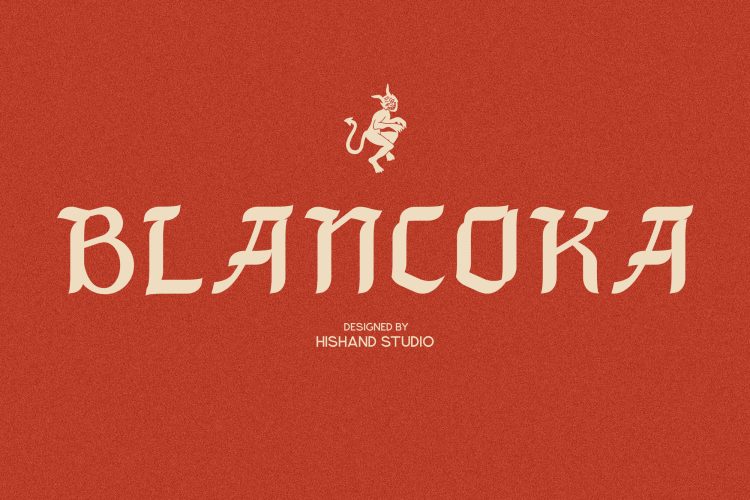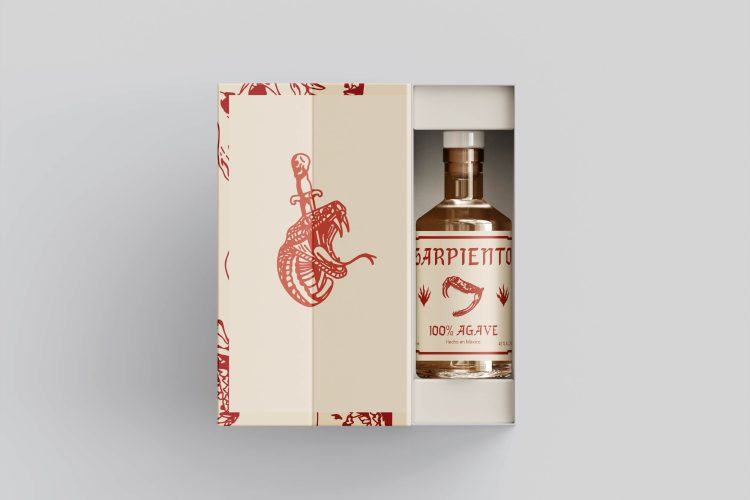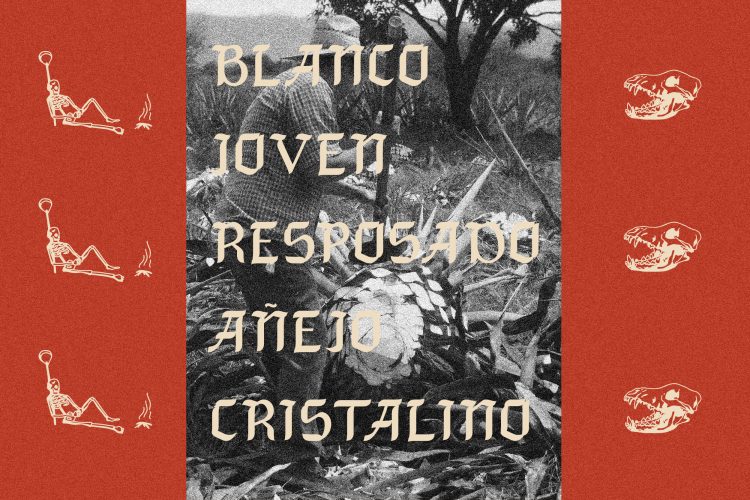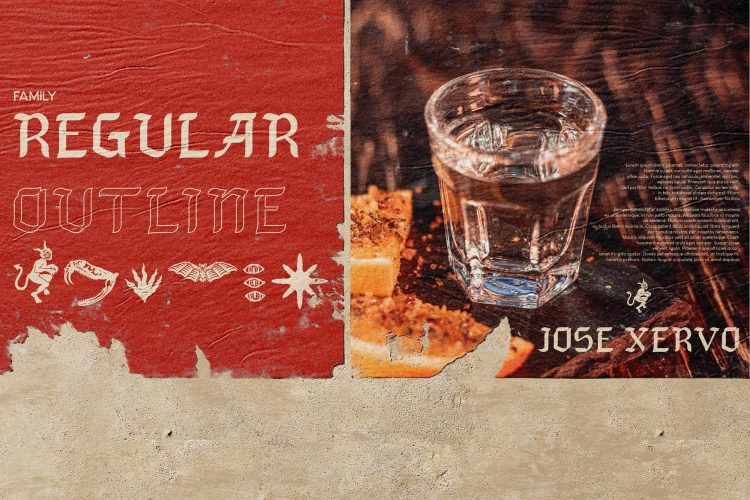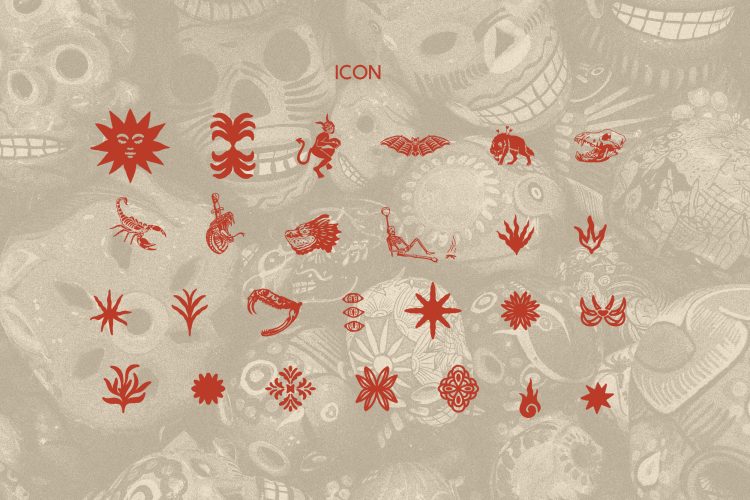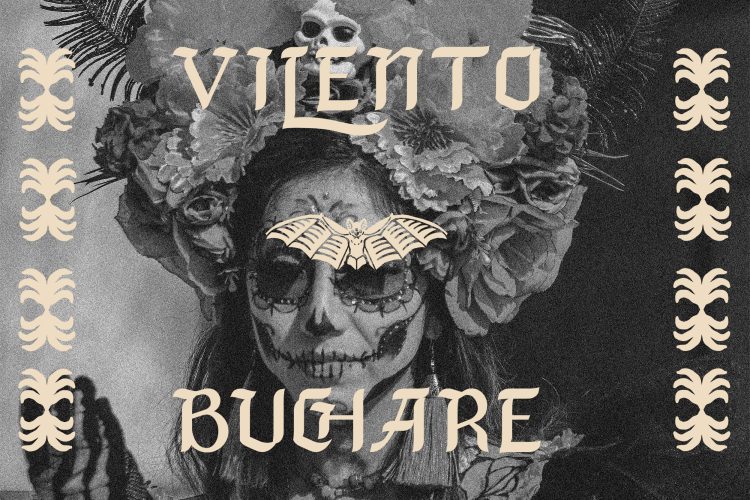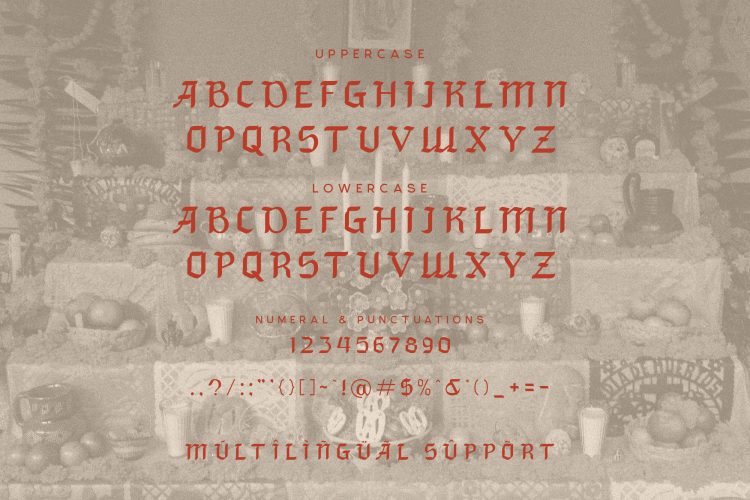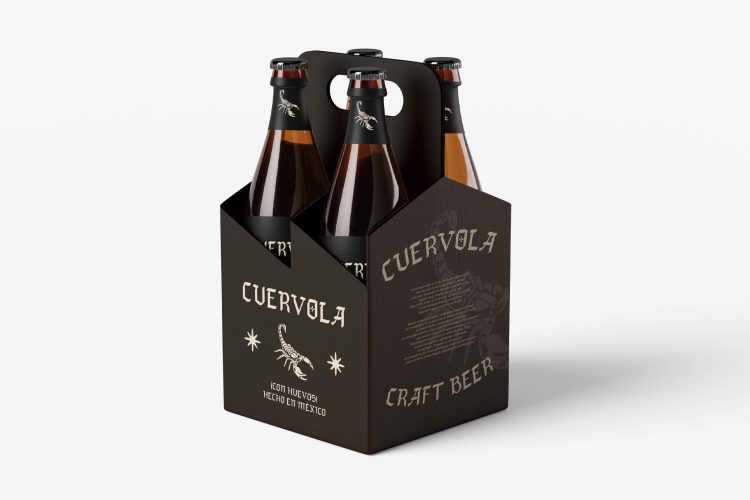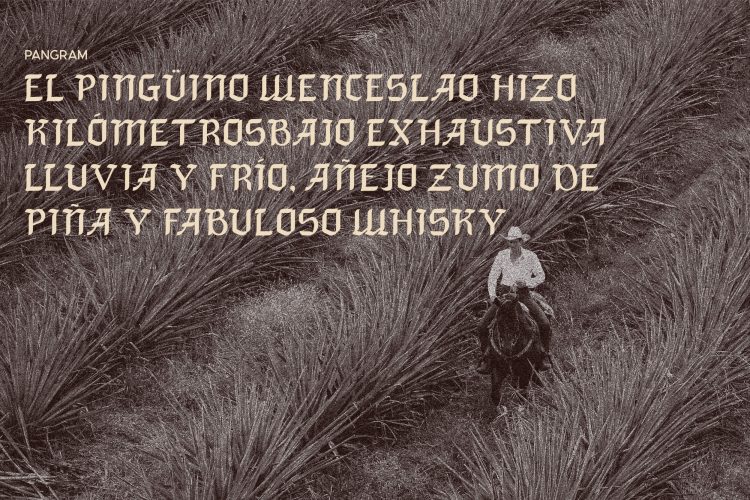
Blancoka is a bold and expressive display font that embodies the fiery soul of tequila and the spirited essence of Mexico. Designed with a deep appreciation for cultural heritage and visual storytelling, Blancoka merges traditional blackletter aesthetics with a contemporary Latin twist. The result is a typeface that feels both nostalgic and refreshingly original—perfectly suited for projects that demand presence, attitude, and unmistakable identity.
Inspired by the energy of bustling Mexican cantinas, the raw beauty of vintage tequila labels, and the intricacy of folkloric iconography, Blancoka exudes character in every stroke. Its sharp, angular letterforms mimic the jagged silhouettes of agave plants and the flickering motion of flames dancing in a mezcal shot. Whether used in large headlines, packaging designs, liquor branding, or editorial layouts, Blancoka commands attention with visual drama and cultural richness.
Each curve and corner carries a handcrafted feel—echoing artisanal craftsmanship while maintaining a sense of rebellion and individuality. Blancoka doesn’t play it safe; it thrives on contrast and intensity. It evokes the heat of the desert sun, the grit of old-world print design, and the boldness of modern Latin expression.
This typeface is not just a stylistic choice—it’s a statement. Blancoka speaks to creatives who value authenticity, storytelling, and striking impact. It’s ideal for branding, logos, apparel, posters, or anything that seeks to blend tradition with contemporary flair. Like a proud bottle of tequila standing tall on a dusty bar shelf, Blancoka offers a flavor that’s strong, unapologetic, and unforgettable.
Whether you’re designing for a fiesta or a fierce editorial piece, Blancoka delivers an unforgettable typographic experience rooted in culture, passion, and timeless design energy
Perfect for creative projects that seek authenticity, intensity, and a touch of myth, Blancoka font stands tall just like a proud bottle of tequila on a dusty bar shelf.                                                        Complete with
- ligatures
- alternates
- regular
- outline
- icon
- kerning
- multilingual support